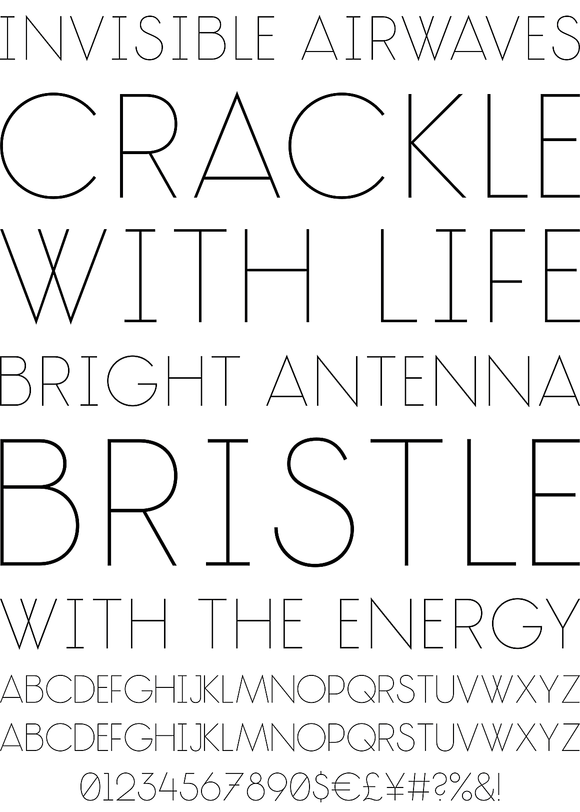
TJ Evolette A is experimental, fashionable and clean. The geometric constructed upper case grotesque was designed by Timo Titzmann and Jakob Runge in spring 2011.
TJ Evolette A is experimental, fashionable and clean. The geometric constructed upper case grotesque was designed by Timo Titzmann and Jakob Runge in spring 2011. The typeface comes along with two additional integrated extravagant stylistic sets for the whole alphabet and some astonishing special characters as well. The plain linear-antiqua with classical proportions offers numerous combination possibilities between the ordinary alphabet of TJ Evolette A and the two alternate alphabets an interpretation of Art Deco mixed with straight lined shapes of ancient runes. This variety encourages unusual and extroverted creation in editorial and poster design. The font contains seven closely graded weights (form hairline to bold) to keep all options open while designing with the font. All common character sets of Central and Eastern European as well as Western Europe are supported. By OpenType features all 446 glyphs can be used optimally.